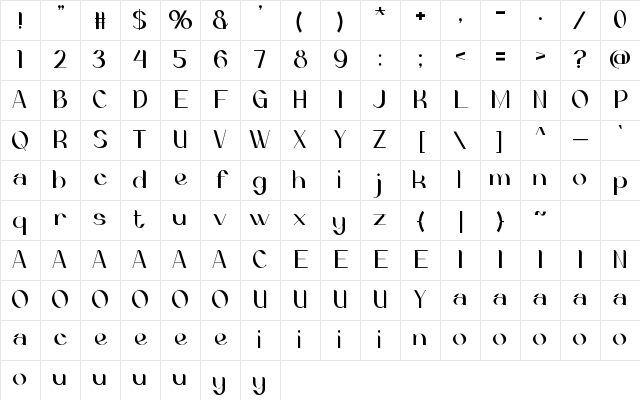
PLATONIA Regular
Foundry: SKYTROOPAS
Designer: SKYTROOPAS Team
Design Context for PLATONIA
PLATONIA is a composed and adaptable typeface that performs quietly and consistently across a wide range of design contexts.